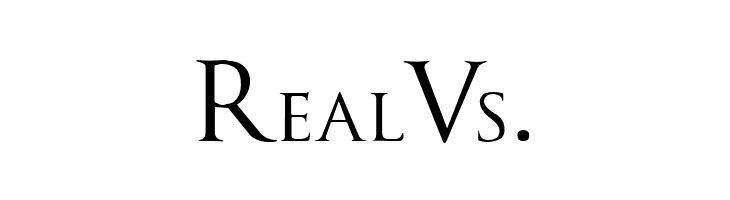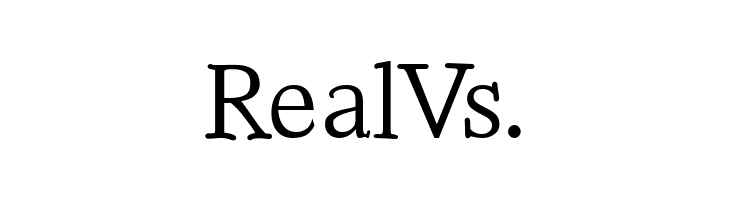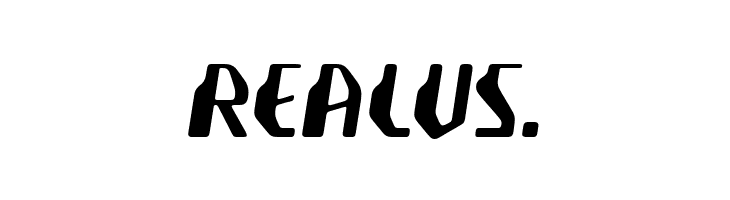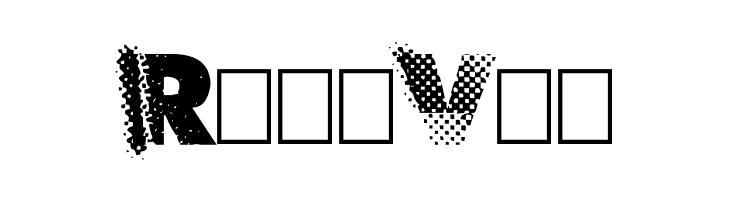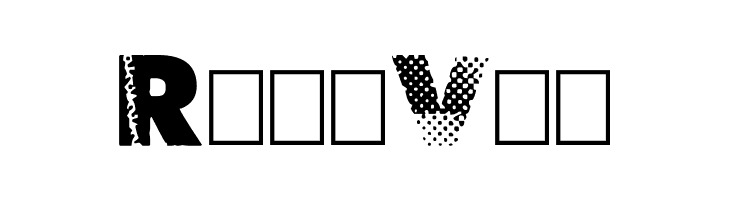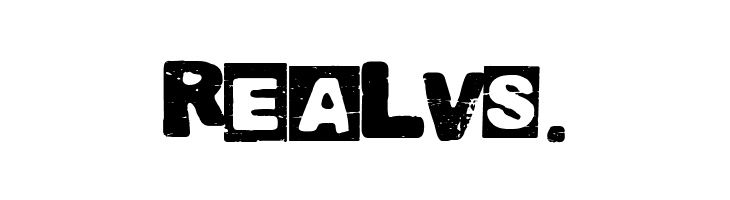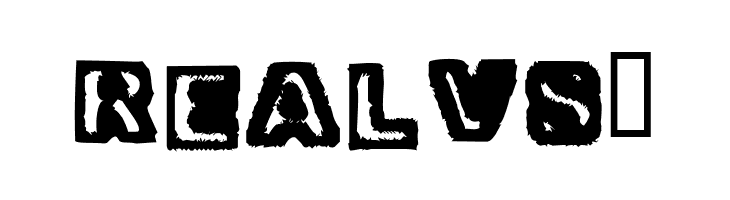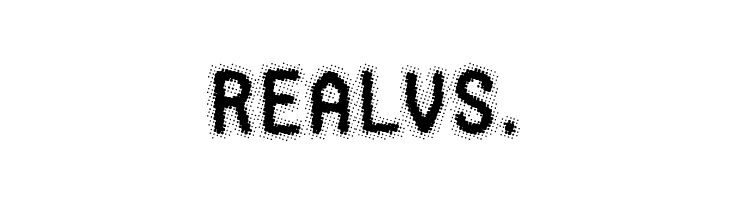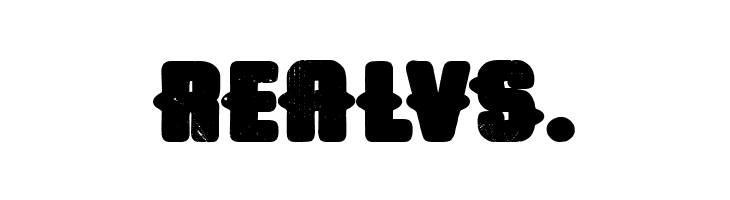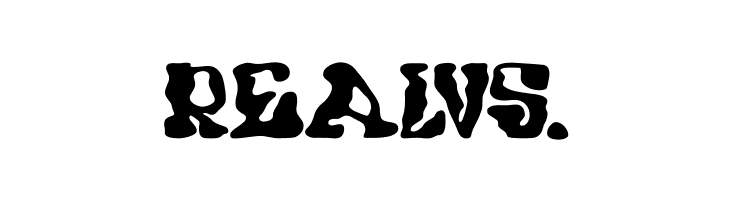
A bold, playful font with a 3D shadow effect and cartoonish style.
A playful, bold font with cartoonish strokes and strong outlines.
A textured, distressed font with a dynamic and rugged appearance.
A classic serif font with elegant proportions and moderate contrast, ideal for sophisticated designs.
A bold, geometric font with angular, blocky characters.
An edgy, hand-drawn font with a tall, narrow, and jagged style.
A bold, playful font with a 3D shadow effect, perfect for eye-catching designs.
A bold, playful font with a 3D shadow effect, ideal for eye-catching designs.
A bold, geometric font with a modern and assertive style.
A bold, distressed font with a punk rock aesthetic.
A bold, distressed font with a halftone dot pattern for a vintage look.
A classic serif font inspired by Roman inscriptions, exuding elegance and authority.
A bold, geometric font with playful circular cutouts and a futuristic style.
A modern, textured geometric sans-serif font with rounded edges.
A bold, semi-expanded font with a distressed, grunge texture.
A futuristic, geometric font with angular, streamlined letterforms.
A bold, distressed font with a rugged, vintage appearance and thick, rounded strokes.
A bold, dynamic font with sharp, angular cuts and a modern geometric style.
A distressed, grungy font with a hand-drawn, edgy style.
A bold, grunge-style font with irregular, dynamic strokes.
A bold, angular, and decorative font with a futuristic style.